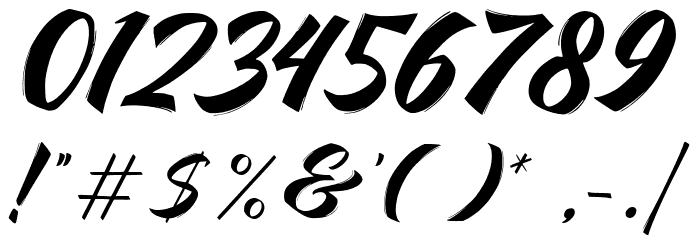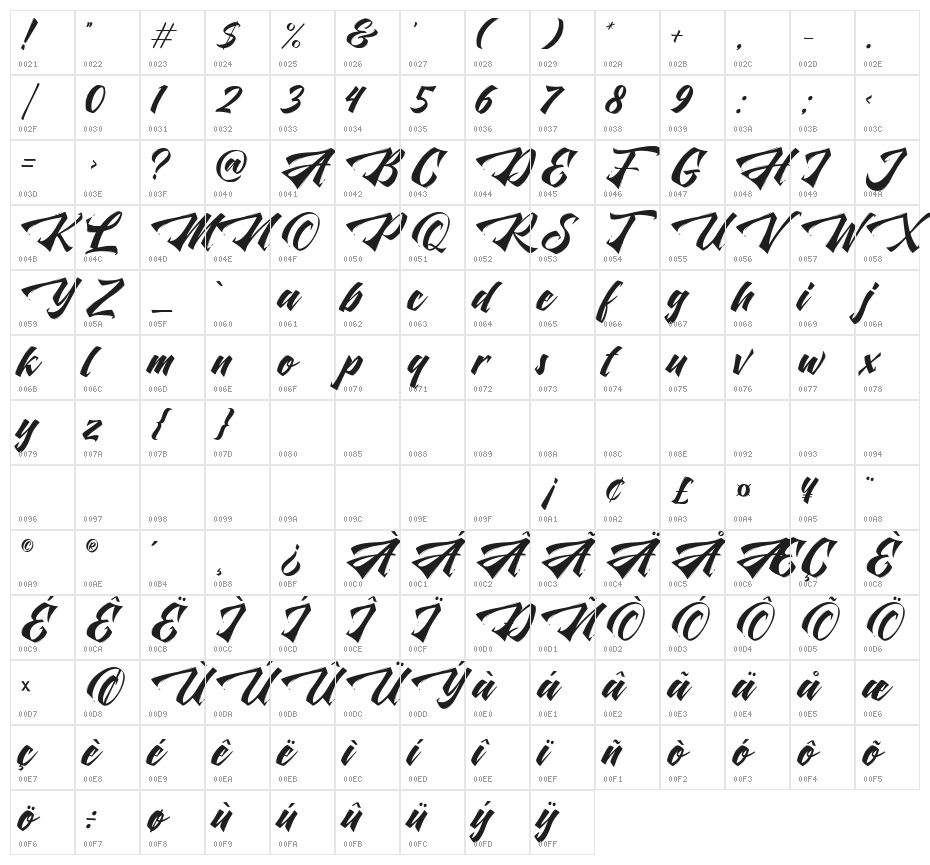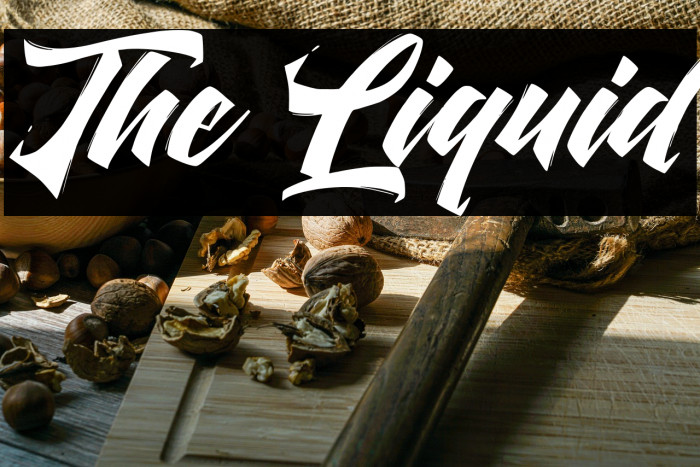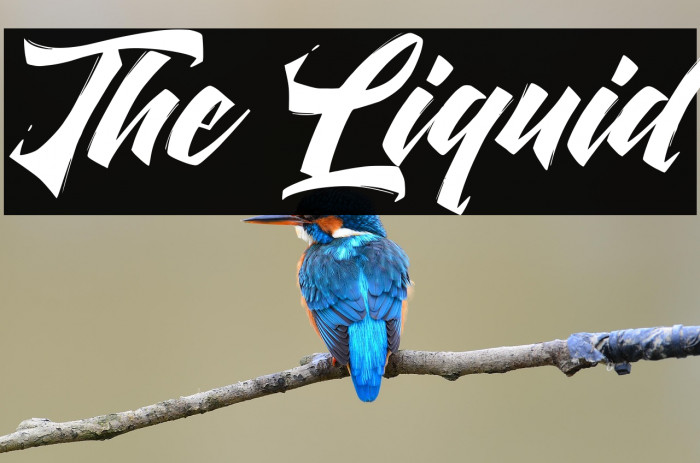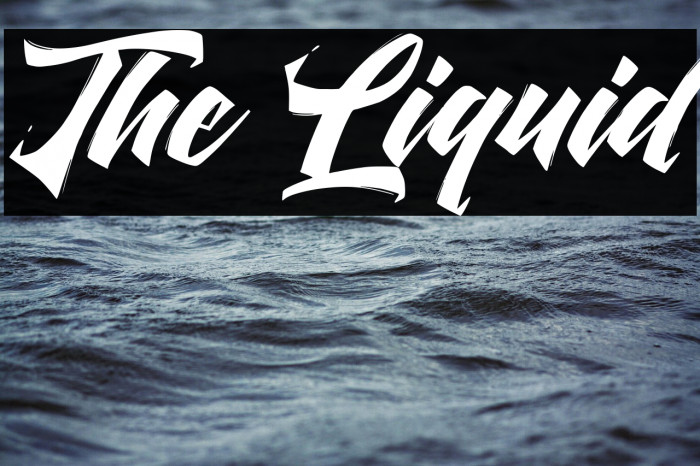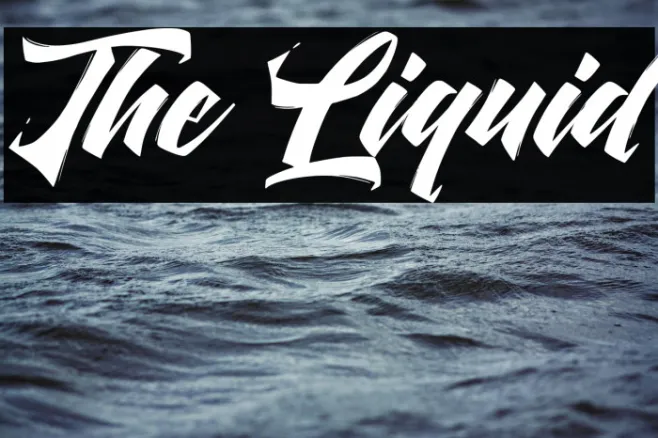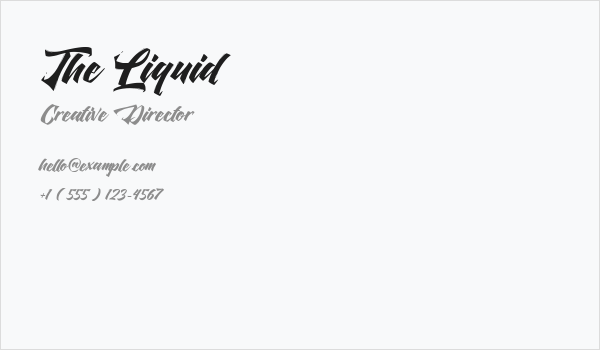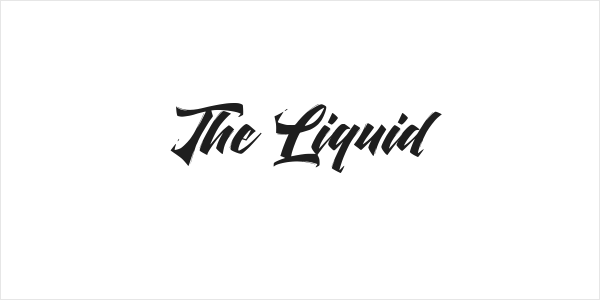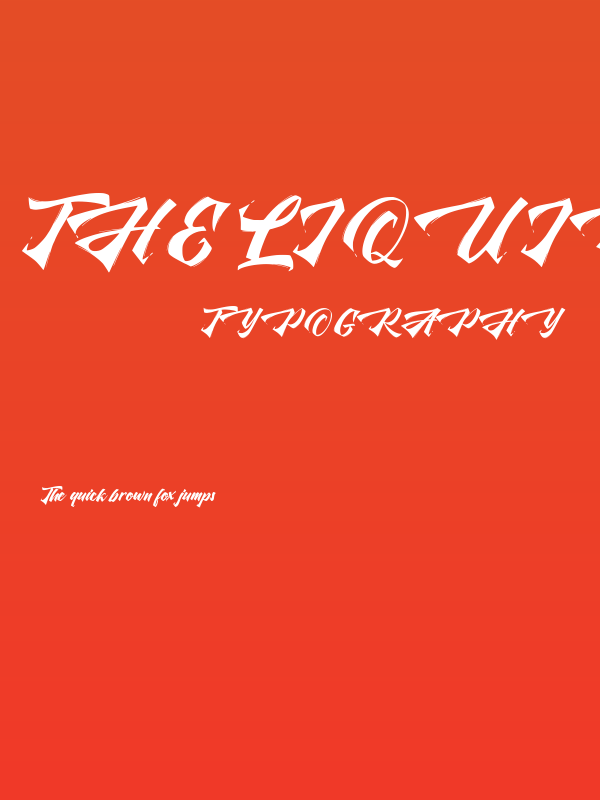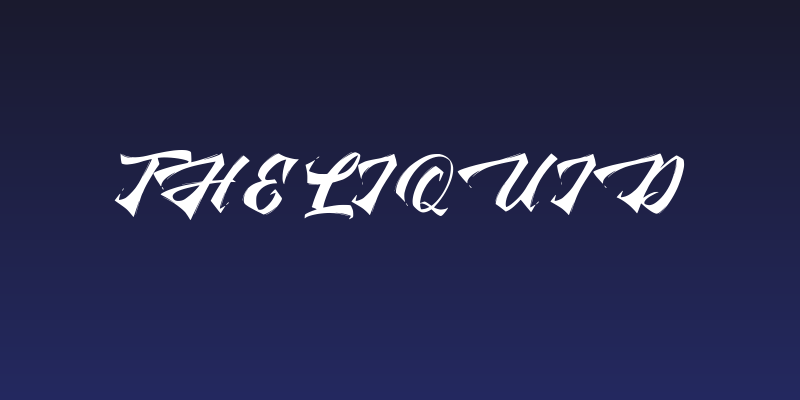
The Liquid Font
The Liquid Description
This font features a bold and dynamic script style with a strong presence. The characters are designed with a calligraphic flair, showcasing sharp angles and fluid strokes that create a sense of movement and energy. The uppercase letters are particularly striking, with exaggerated flourishes and a slightly condensed form that adds to their dramatic impact. The lowercase letters maintain the same energetic style, with smooth connections between characters that enhance readability. The numerals are consistent with the overall design, offering a bold and cohesive look. Special characters are also included, maintaining the same stylistic elements. This font is ideal for projects that require a bold, expressive touch.